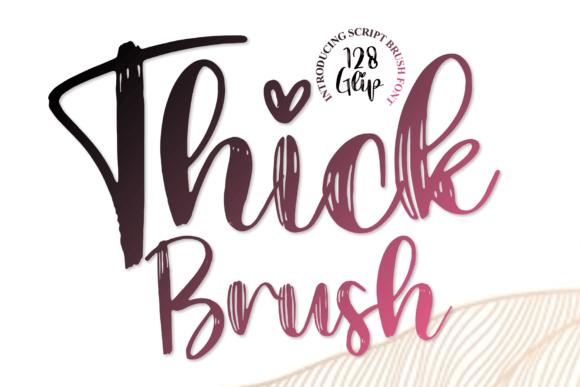
Are you on the hunt for the perfect font to elevate your brand and give it a luxurious edge? Look no further than Thick Brush, the best font for luxury logos on the market. Created by andikastudio, this lovely script font is a game-changer for anyone looking to make a bold statement.
With its shaded effect and latest style letters, Thick Brush is the ideal choice for a variety of projects. Imagine using it for wall displays that demand attention, wedding invitations that exude elegance, or social media post logos that stand out in a crowded feed. But that's not all - Thick Brush is also perfect for advertisements, product packaging, product designs, labels, photography, watermarks, invitations, stationery, and so much more.
Thick Brush's taste handwriting is sure to impress your audience and make your brand unforgettable. It's the perfect combination of sophistication and modernity, making it a font that will never go out of style. Plus, it's incredibly easy to use - simply download and start creating.
Don't settle for a boring font that blends in with the rest. Choose Thick Brush and take your brand to the next level. Download it today and see the difference it can make for your project.